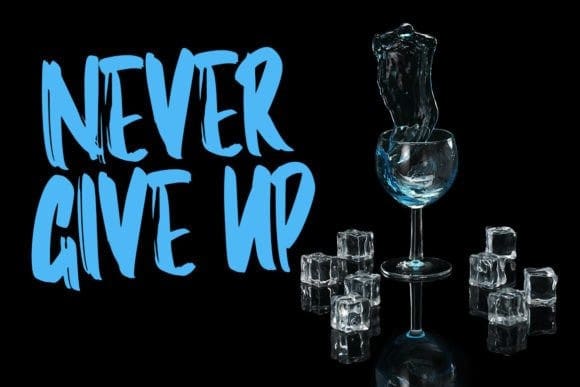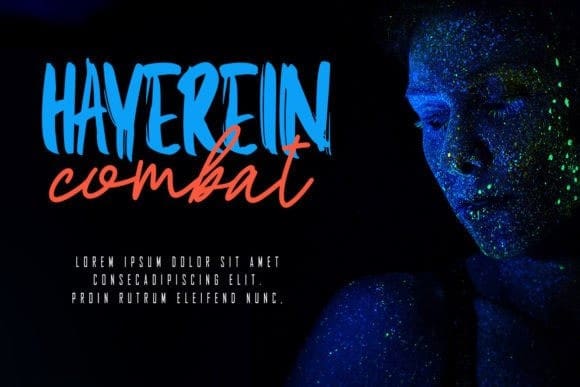
Erzone Brush Font
Erzone Brush Font was inspired by the typography of natural brushes. Written in quick motion using a brush pen, it’s a bit dry and looks realistic. It is suitable for commercial needs or magazine fashion design, offer logos, product packaging, headlines, posters, merchandise, social media & other greeting cards.